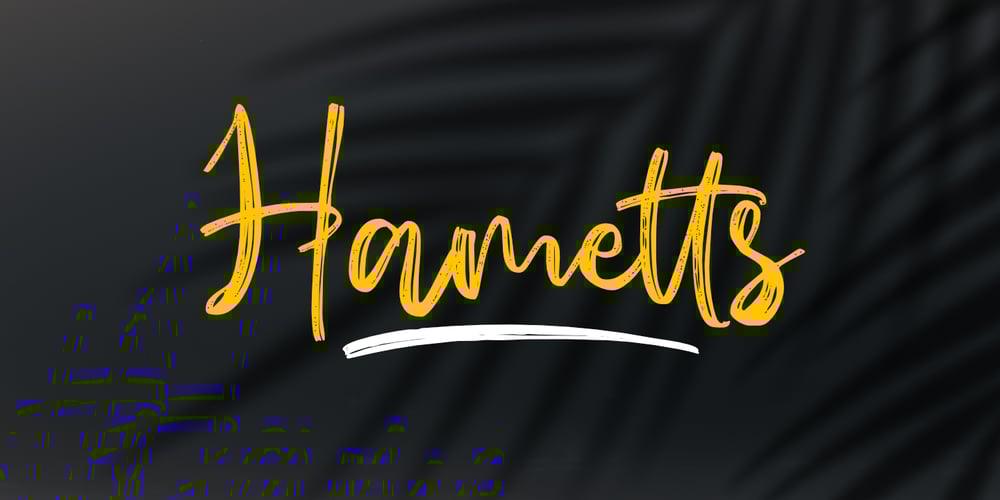
Hametts Font Family was designed by Aldy Sidik, Nurul Hidayani and published by Olivetype. Hametts contains 1 styles and family package options. Hametts is a dazzling brush script font. This font is nearly crafted and highly detailed. The texture looks cool and authentic, suitable to enhance the quality of each of your posters, flyers, or printFeatures : Basic Latin A-Z, a-z, numbers, symbols, and punctuations Hametts is supporting 66 Languages: from Afrikaans Albanian Catalan Danish to Dutch English Spanish Swedish Zulu. Accented Characters : ÀÁÂÃÄÅÆÇÈÉÊËÌÍÎÏÑÒÓÔÕÖØŒŠÙÚÛÜŸÝŽàáâãäåæçèéêëìíîïñòóôõöøœšùúûüýÿžß Thank you